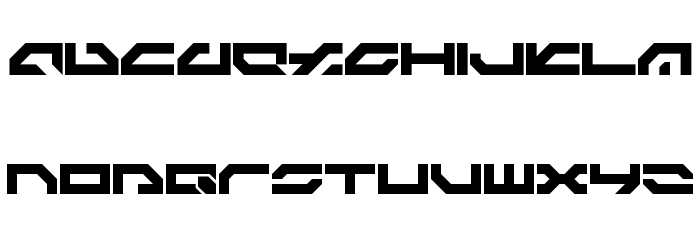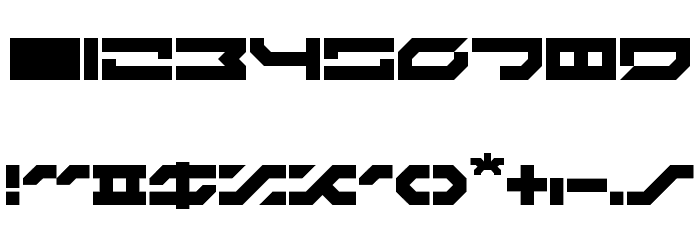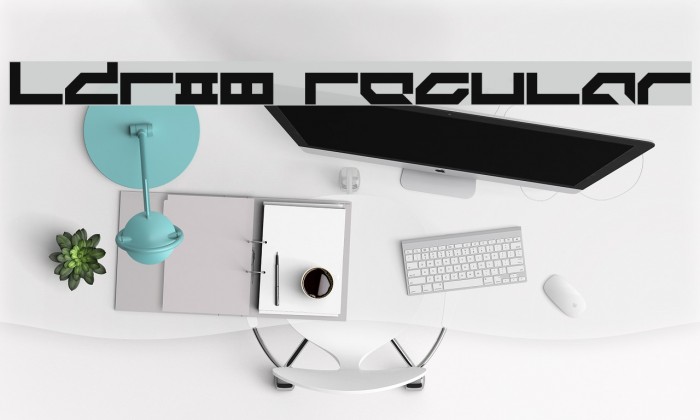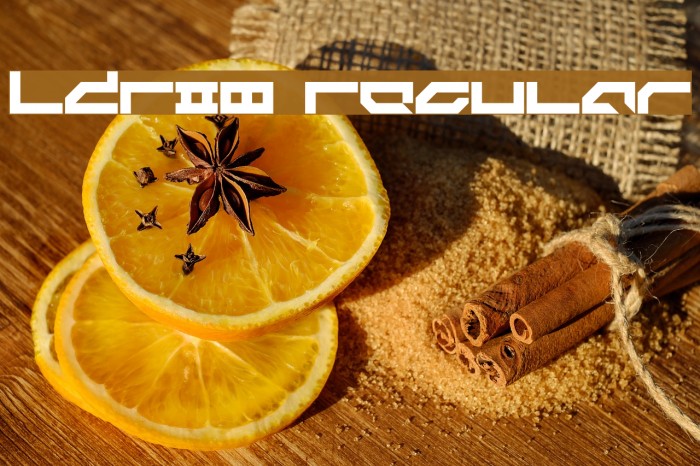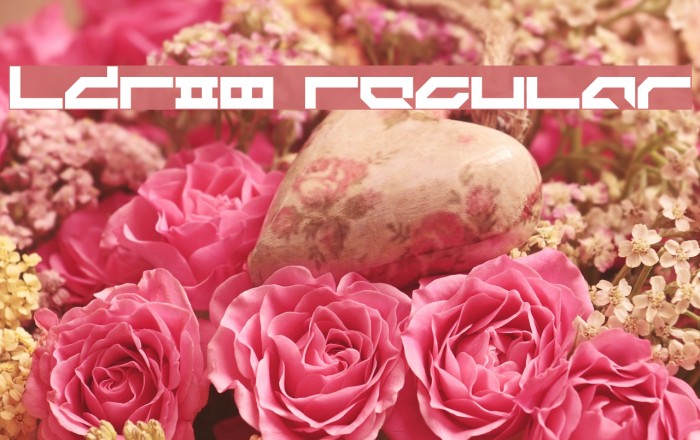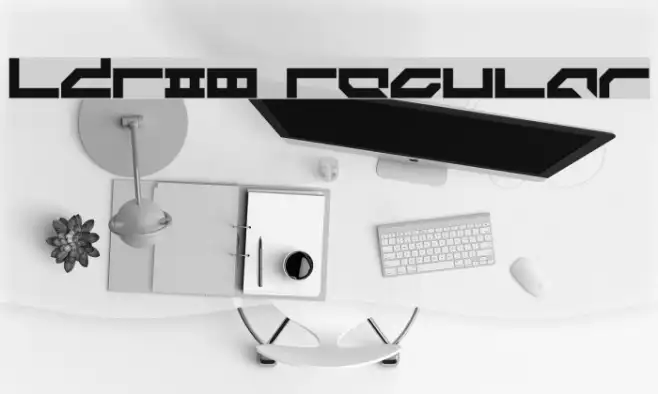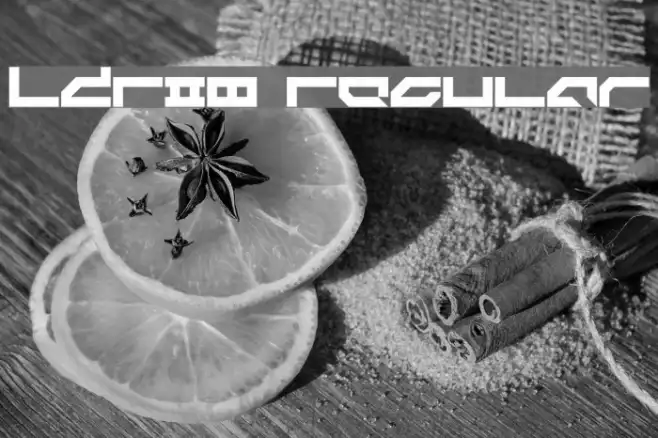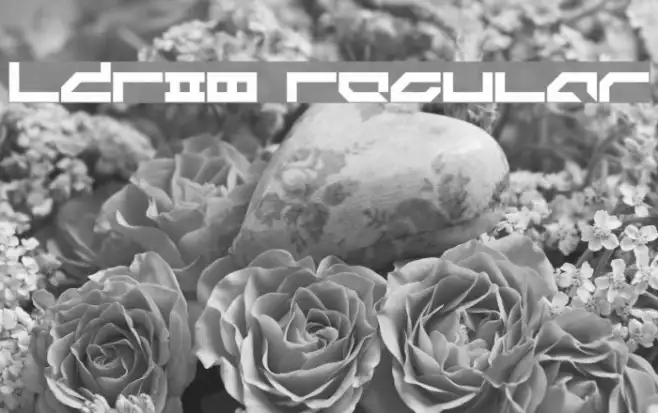
LDR#8 Regular Font
This font features a bold, futuristic design with geometric shapes and sharp angles. The characters are constructed with a series of straight lines and corners, creating a highly stylized and modern appearance. The uppercase and lowercase letters maintain a consistent style, with unique cuts and angles that give the font a distinctive, tech-inspired look. The numbers and special characters follow the same design principles, ensuring uniformity across all glyphs. This font is ideal for projects that require a contemporary and edgy aesthetic.
A bold, geometric font with a futuristic and tech-inspired design.
- Proposed Projects: Ideal for technology branding, sci-fi movie posters, video game titles, and modern graphic design projects.